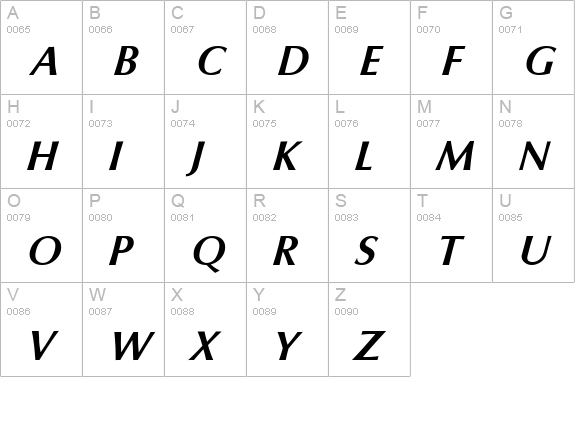
ColumbiaSerial-BoldItalic Font Details
ColumbiaSerial-BoldItalic is a modern and stylish font that exudes confidence and sophistication. Its bold and italicized design makes it perfect for adding emphasis and flair to your projects. The sleek lines and sharp angles of this font give it a contemporary feel that is sure to make a statement. Whether you are designing a logo, creating a poster, or working on a website, ColumbiaSerial-BoldItalic is a versatile choice that will elevate your work to the next level. Best of all, ColumbiaSerial-BoldItalic is available for free download at FontsMarket.com. This means you can easily access this high-quality font without any cost, making it an excellent choice for both personal and commercial projects. Don't miss out on the opportunity to enhance your designs with the bold and dynamic style of ColumbiaSerial-BoldItalic - download it today and let your creativity shine!